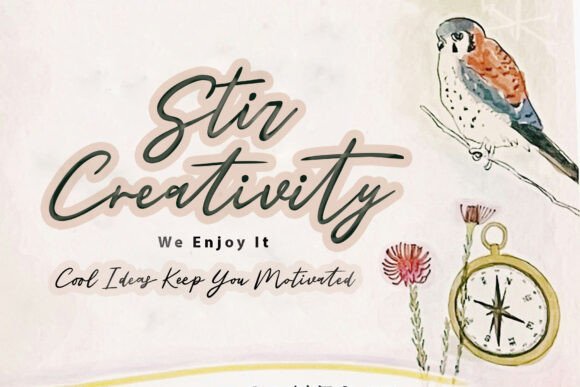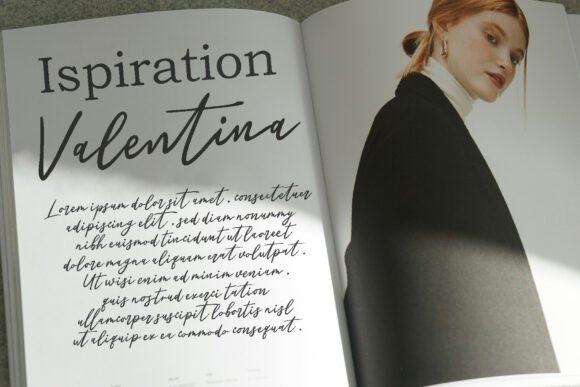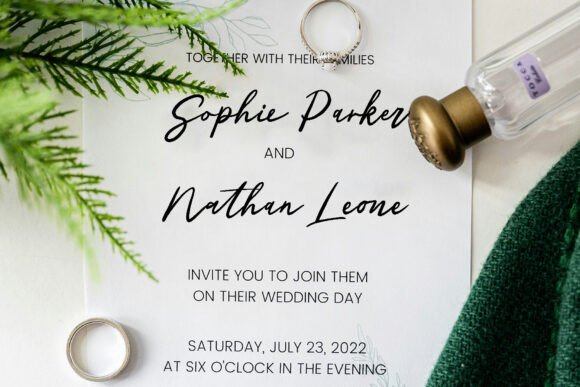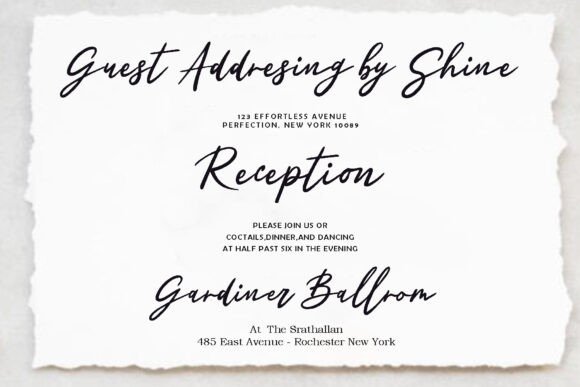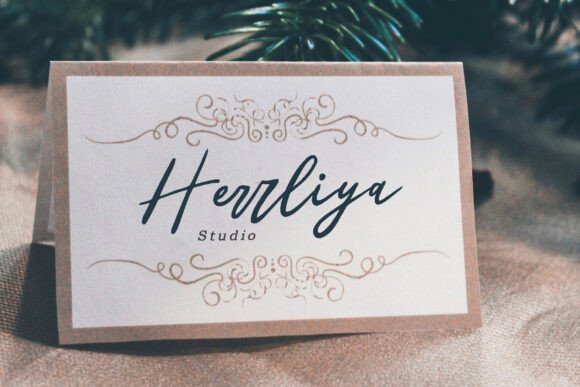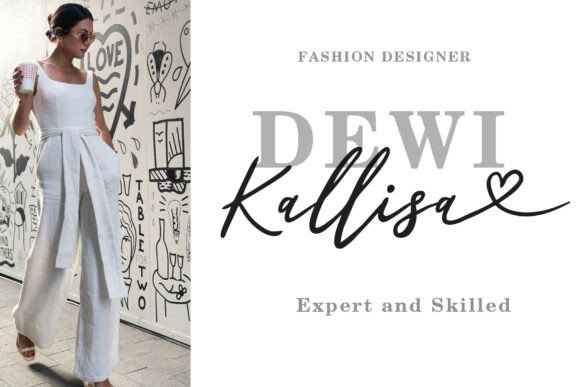
Unveiling Bolitare Font: The Epitome of Trendy Chic Handwritten Elegance
In the realm of typography, few fonts manage to capture the essence of both sophistication and playfulness as effectively as Bolitare Signature. This trendy chic handwritten font has been meticulously crafted to infuse life, love, and a dash of amorous quality into your creative projects. Whether you’re a designer looking for that perfect touch of elegance or a crafter aiming to add a personal, heartfelt feel to your work, Bolitare Signature is poised to become your go-to choice.
The Design Allure of Bolitare Signature
Bolitare Font’s singular design allure lies in its harmonious blend of organic grace and bold expressiveness. This adaptable font strikes a judicious balance between fluidity and structure, making it an ideal choice for a wide array of creative ventures. From love-infused stationery designs that speak directly to the heart, to subtly elegant branding work that elevates your business’s visual identity, Bolitare Signature envelops all creative projects in its distinctive aura of chicness and refinement.
One of the standout features of Bolitare Signature is its incredible versatility. This font isn’t just limited to romantic or feminine projects; its unique charm can complement a broad spectrum of design needs. Imagine using Bolitare Font for:
- Wedding and Event Stationery: Create invitations, thank you cards, and event programs that exude love and sophistication.
- Branding and Packaging: Elevate your brand’s aesthetic with elegant packaging, business cards, and letterheads that convey a sense of luxury and care.
- Digital Content: Enhance your blog posts, social media graphics, and email newsletters with a touch of personal warmth and style.
- Crafting and DIY Projects: Add a professional yet personal touch to your handmade crafts, such as journals, planners, and art pieces.
Crafting Unique Experiences with Bolitare Signature
Bolitare Font’s ability to breathe life into your projects isn’t just about its aesthetic appeal; it’s also about the emotional connection it can help establish. In a world where digital content often prevails, the tactile and personal feel of handwritten fonts like Bolitare Signature can make your work stand out. It’s not just a font; it’s a tool to weave narratives, evoke emotions, and create memorable experiences.
Why Choose Bolitare Signature?
Choosing Bolitare Font for your projects comes with numerous benefits:
- Uniqueness: Stand out in a crowded digital landscape with a font that is both distinctive and captivating.
- Adaptability: Use it across various platforms and project types, from digital to print, with ease.
- Ease of Use: Designed to be user-friendly, Bolitare Signature can be effortlessly integrated into your design workflow.
- Emotional Connection: Create a deeper connection with your audience through the warmth and elegance it brings to your work.
Bolitare Font is more than just a trendy chic handwritten font; it’s a gateway to transforming your creative projects with elegance, love, and a touch of sophistication. Its singular design allure, coupled with its versatility and emotional resonance, makes it an invaluable asset for designers and crafters alike. Whether you’re aiming to create love-infused stationery or subtly elegant branding, Bolitare Signature is your key to unlocking a world of refined and chic design possibilities.
Embark on a journey to redefine your creative expression with Bolitare Signature. Dive into the world of typography with a font that not only speaks of elegance and refinement but also of the unique stories you’re eager to tell. Experience the transformative power of Bolitare Font and let your designs speak volumes about your creativity and attention to detail.